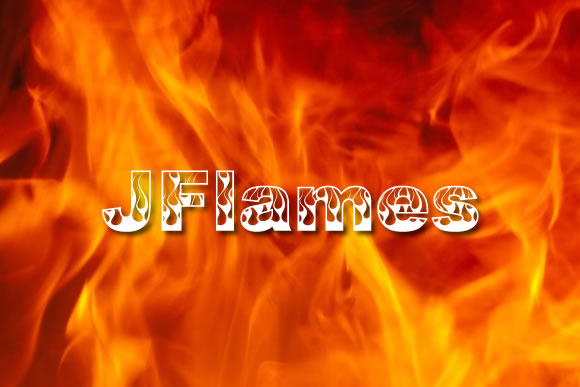
Introducing J Flames Font, a decorative font family that will ignite your designs with its fiery charm. Inspired by the passionate dance of flames, this font exudes a captivating energy, adding a touch of dynamism to your creative projects. Unleash the power of J Flames Font and let your imagination run wild.
With its bold and striking strokes, J Flames Font commands attention, making your words leap off the page. Each character dances with a distinct personality, creating a visual symphony that engages and captivates your audience. Whether you're designing logos, posters, social media graphics, or eye-catching headlines, J Flames Font will elevate your designs to new heights.
This versatile font family offers a range of styles to suit your diverse design needs. From the fiery intensity of J Flames Regular to the playful allure of J Flames Italic, you'll find the perfect match for your creative vision. Explore the endless possibilities and let your designs ignite with the passion of J Flames Font.
Created by the talented Jeff Bensch, J Flames Font is a testament to his artistic prowess and attention to detail. Each stroke, curve, and flourish has been meticulously crafted to deliver a font that is both visually stunning and highly functional. Experience the J Flames Font difference and elevate your designs to a new level of excellence.